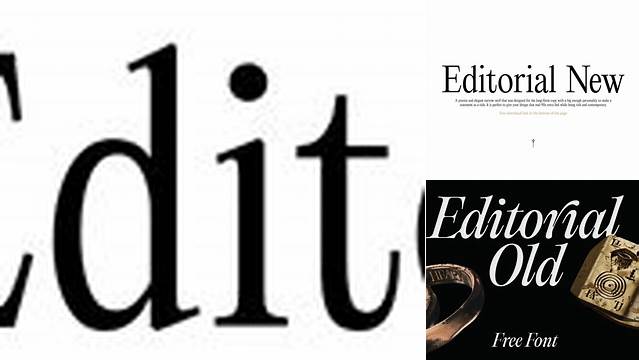
1. What is the PP Editorial Font?
Let's kick things off by understanding what exactly the PP Editorial font is. In short, it's a typeface designed with a modern and stylish aesthetic in mind. It's often characterized by its clean lines, contemporary feel, and versatility. This makes it a fantastic option for a wide range of projects, from editorial layouts and branding to web design and advertising. Think of it as a chameleon in the font world, adapting beautifully to different contexts and design styles. But what specific features make it stand out? We'll explore those in the following sections, giving you a detailed look at what makes PP Editorial so special.
2. Key Features of PP Editorial Font
The PP Editorial font isn't just another typeface; it boasts several key features that make it a top choice for designers. One of the standout elements is its legibility. Despite its stylish flair, PP Editorial maintains excellent readability, ensuring that your message is always clear and impactful. The font also offers a diverse range of weights and styles, giving you the flexibility to create visual hierarchy and add depth to your designs. Imagine having a toolbox filled with variations, allowing you to craft everything from bold headlines to subtle body text. Furthermore, the modern and clean design of PP Editorial makes it incredibly versatile, fitting seamlessly into various design projects. We’ll delve deeper into each of these features to help you understand why they are so valuable.
3. Common Uses of PP Editorial
So, where does the PP Editorial font shine the brightest? Well, given its versatility, it's used in a plethora of design contexts. You'll often find it gracing the pages of magazines and editorial layouts, thanks to its clean and stylish appearance. Its modern aesthetic makes it perfect for branding projects, helping businesses create a strong and memorable visual identity. Web designers also love PP Editorial for its legibility and contemporary feel, making websites look both professional and visually appealing. Think of the logos, website headers, and even mobile app interfaces that could benefit from this font’s crispness. We’ll explore specific examples to paint a clearer picture of how PP Editorial is making waves in the design world.
9. Using PP Editorial in Graphic Design Projects
Now for the fun part: using the PP Editorial font in your graphic design projects! This font can be a real game-changer, adding a touch of sophistication and modernity to your work. But how do you use it effectively? We'll explore best practices for incorporating PP Editorial into different types of designs, from logos and branding materials to brochures and social media graphics. We'll discuss how to pair it with other fonts, how to use its various weights and styles, and how to make the most of its unique characteristics. Think of it as unlocking the full potential of PP Editorial in your design arsenal.
10. PP Editorial Font for Web Design
The web design world is constantly evolving, and the right font can make all the difference in creating a visually appealing and user-friendly website. The PP Editorial font is a popular choice for web designers, thanks to its legibility and modern aesthetic. But how do you optimize it for the web? We'll delve into the technical aspects, such as font formats, web fonts, and loading speeds. We'll also discuss best practices for using PP Editorial in different website elements, from headings and body text to navigation menus and calls to action. It’s all about ensuring your website looks fantastic and performs flawlessly.
11. PP Editorial Font for Branding
Your brand's visual identity is crucial for making a lasting impression, and the font you choose plays a significant role. The PP Editorial font can be a fantastic asset for branding projects, conveying a sense of modernity, sophistication, and professionalism. We'll explore how to use PP Editorial to create a cohesive brand identity, from logo design to marketing materials. We'll discuss how its clean lines and versatile styles can help you communicate your brand's personality and values. Think of it as crafting a visual voice that resonates with your target audience.
12. Pairing PP Editorial with Other Fonts
No font exists in a vacuum! To create truly stunning designs, you'll often need to pair the PP Editorial font with other typefaces. The right pairings can enhance PP Editorial's strengths and create visual harmony, while the wrong pairings can clash and detract from your message. We'll provide tips and recommendations for fonts that complement PP Editorial beautifully, whether you're looking for a classic serif, a bold sans-serif, or a script font with flair. It’s all about finding the perfect balance and creating a visual symphony.
13. The History and Design Inspiration Behind PP Editorial
Ever wondered about the origins of the PP Editorial font? Knowing the history and inspiration behind a typeface can give you a deeper appreciation for its design and how to use it effectively. We'll delve into the background of PP Editorial, exploring its creator, the design influences that shaped it, and the story behind its unique characteristics. This behind-the-scenes look will not only make you a font aficionado but also help you connect with the font on a more personal level.
14. PP Editorial in Print vs. Digital Designs
Designing for print and digital media can be quite different, and the font you choose needs to work well in both formats. The PP Editorial font is versatile enough to shine in both print and digital designs, but there are some key considerations to keep in mind. We'll discuss how to optimize PP Editorial for different mediums, from ensuring legibility in print to optimizing rendering on screens. It’s about understanding the nuances of each format and making informed design choices.
15. Exploring Different Weights and Styles of PP Editorial
The beauty of the PP Editorial font lies in its versatility, which is partly due to its range of weights and styles. From light and elegant to bold and impactful, PP Editorial offers a spectrum of options to suit various design needs. We'll explore these different weights and styles in detail, explaining how each can be used to create visual hierarchy, add emphasis, and convey different moods. Think of it as having a palette of typographic tones to play with.
16. Tips for Using PP Editorial Effectively
Even the most beautiful font can fall flat if it's not used effectively. To help you make the most of the PP Editorial font, we'll share some practical tips and best practices. We'll cover everything from choosing the right size and weight to optimizing spacing and kerning. These tips will help you create designs that are not only visually appealing but also highly readable and impactful. It’s about mastering the art of typography to elevate your work.
17. Common Mistakes to Avoid When Using PP Editorial
Just as there are best practices for using the PP Editorial font, there are also common mistakes to avoid. Overusing the font, pairing it with clashing typefaces, or neglecting proper spacing can diminish its impact. We'll highlight these pitfalls and provide solutions to help you steer clear of them. Think of it as learning from others' missteps to ensure your designs are always top-notch.
18. PP Editorial Font and Accessibility
Accessibility is a crucial aspect of design, ensuring that your message is clear and readable for everyone, including people with visual impairments. The PP Editorial font, with its clear letterforms, can be a good choice for accessibility, but there are additional considerations to keep in mind. We'll discuss how to use PP Editorial in an accessible way, focusing on factors like contrast, size, and spacing. It’s about creating designs that are not only beautiful but also inclusive.
19. Future Trends in Font Design and PP Editorial
The world of font design is constantly evolving, with new trends and technologies emerging all the time. What does the future hold for typefaces like the PP Editorial font? We'll explore current trends in typography and speculate on how they might influence the design and use of PP Editorial in the years to come. Think of it as peering into a crystal ball to see what's next in the fascinating world of fonts.
20. PP Editorial Font in Editorial Design
As its name suggests, the PP Editorial font is a natural fit for editorial design. Magazines, newspapers, and other publications benefit from its clean lines and modern aesthetic. We'll delve into specific examples of how PP Editorial is used in editorial layouts, highlighting its effectiveness in headlines, body text, and captions. It's about showcasing how this font can bring a touch of sophistication to the printed page.
21. PP Editorial Font in Marketing Materials
Marketing materials need to grab attention and convey a message effectively. The PP Editorial font can be a valuable asset in creating impactful marketing campaigns. We'll explore how to use PP Editorial in brochures, flyers, posters, and other marketing collateral, focusing on its ability to communicate professionalism and modernity. Think of it as using the font to make a strong statement about your brand.
22. PP Editorial Font in Social Media Graphics
Social media is a visually driven world, and the fonts you use in your graphics can significantly impact engagement. The PP Editorial font can add a touch of sophistication to your social media posts, helping you stand out from the crowd. We'll discuss how to use PP Editorial in social media graphics, focusing on its legibility and visual appeal. It’s about crafting posts that are not only informative but also eye-catching.
23. Creating a Visual Hierarchy with PP Editorial
Visual hierarchy is essential for guiding the reader's eye and highlighting important information. The PP Editorial font, with its range of weights and styles, makes it easy to create a clear visual hierarchy in your designs. We'll explore how to use different weights and sizes of PP Editorial to create emphasis and structure, ensuring your message is communicated effectively. Think of it as using typography to build a roadmap for your readers.
24. PP Editorial Font and Logo Design
Your logo is the cornerstone of your brand identity, and the font you choose is a crucial element. The PP Editorial font, with its clean and modern aesthetic, can be an excellent choice for logo design. We'll discuss how to use PP Editorial in logos, focusing on its versatility and ability to convey different brand personalities. It’s about crafting a logo that is not only visually appealing but also memorable and representative of your brand.
25. Maintaining Consistency with PP Editorial Across Platforms
Consistency is key to building a strong brand identity. When using the PP Editorial font, it's essential to maintain consistency across all platforms, from your website to your marketing materials to your social media graphics. We'll discuss how to ensure consistent use of PP Editorial, focusing on factors like font sizes, weights, and spacing. It’s about creating a cohesive visual experience for your audience.
26. Troubleshooting Common Issues with PP Editorial
Sometimes, things don't go quite as planned, and you might encounter issues when using the PP Editorial font. From font rendering problems to installation hiccups, there are various challenges you might face. We'll address some common issues and provide troubleshooting tips to help you resolve them quickly and easily. Think of it as having a handy toolkit for fixing font-related problems.
27. Resources for Learning More About Typography and PP Editorial
Typography is a vast and fascinating subject, and there's always more to learn. If you're eager to deepen your knowledge of typography and the PP Editorial font, we'll share some valuable resources, including books, websites, and online courses. These resources will help you become a typography expert and master the art of using PP Editorial effectively. It’s about embarking on a journey of continuous learning and improvement.
28. The Impact of Font Choice on User Experience
The fonts you choose can have a significant impact on user experience, particularly in web design and digital interfaces. The PP Editorial font, with its legibility and modern aesthetic, can enhance user experience by making content easier to read and more visually appealing. We'll discuss how font choice affects user experience and how to optimize PP Editorial for a positive user journey. It’s about creating designs that are not only beautiful but also user-friendly.
29. PP Editorial Font and International Character Support
If you're designing for a global audience, it's essential to choose a font that supports international characters and languages. The PP Editorial font offers varying levels of support for different character sets. We'll explore its international character support and discuss considerations for using it in multilingual projects. Think of it as ensuring your message resonates with audiences around the world.
30. PP Editorial: A Font for the Future?
Finally, let's look ahead. Is the PP Editorial font a typeface with staying power? Given its modern aesthetic, versatility, and ongoing popularity, it seems likely that PP Editorial will continue to be a design staple for years to come. We'll discuss its potential longevity and its place in the ever-evolving world of typography. It's about appreciating the enduring qualities of a well-designed font and its potential to shape the future of visual communication.